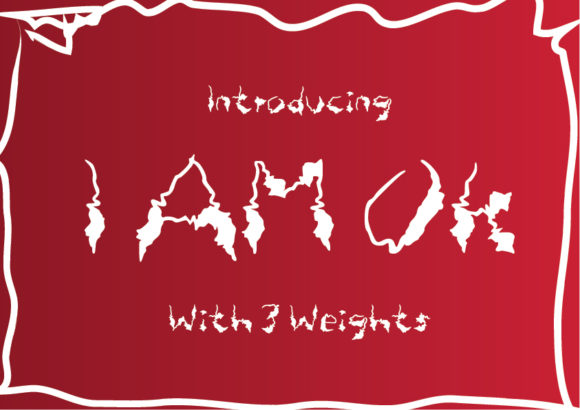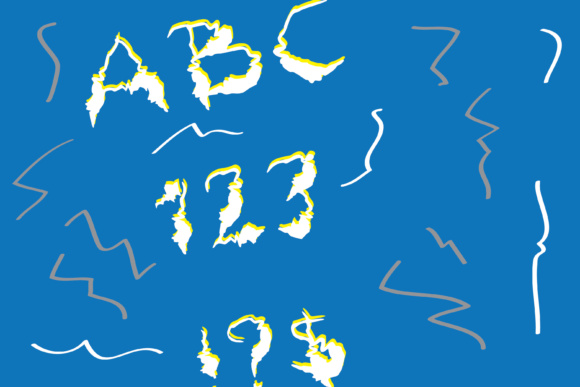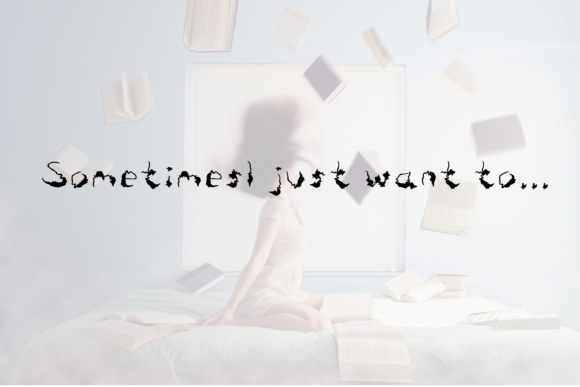
I Am OK Font
About I Am OK Font
The non-functioning of this font is defiantly in question. It looks rather unhinged and defiantly on the edge. Create a zany messed up look to your designs with this unstable crazy looking typeface.
3 fonts includes upper and lower a-z, numbers and some symbols and punctuation.